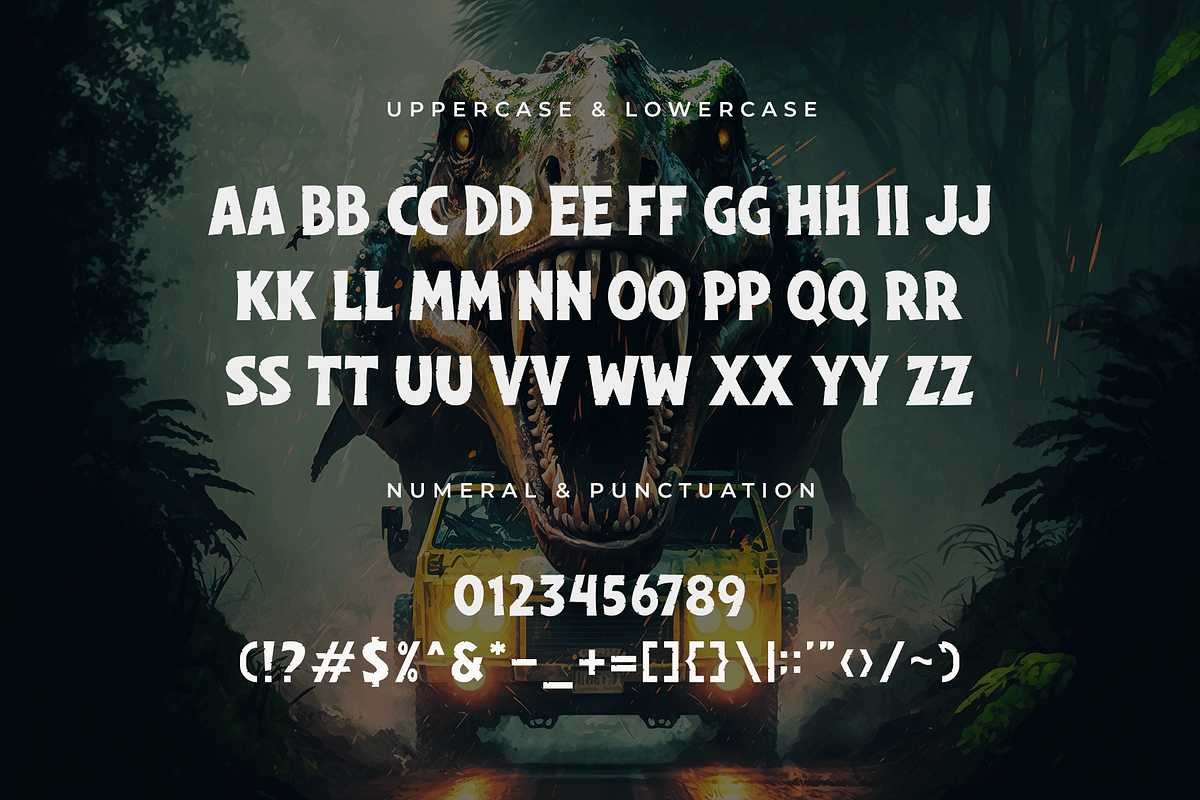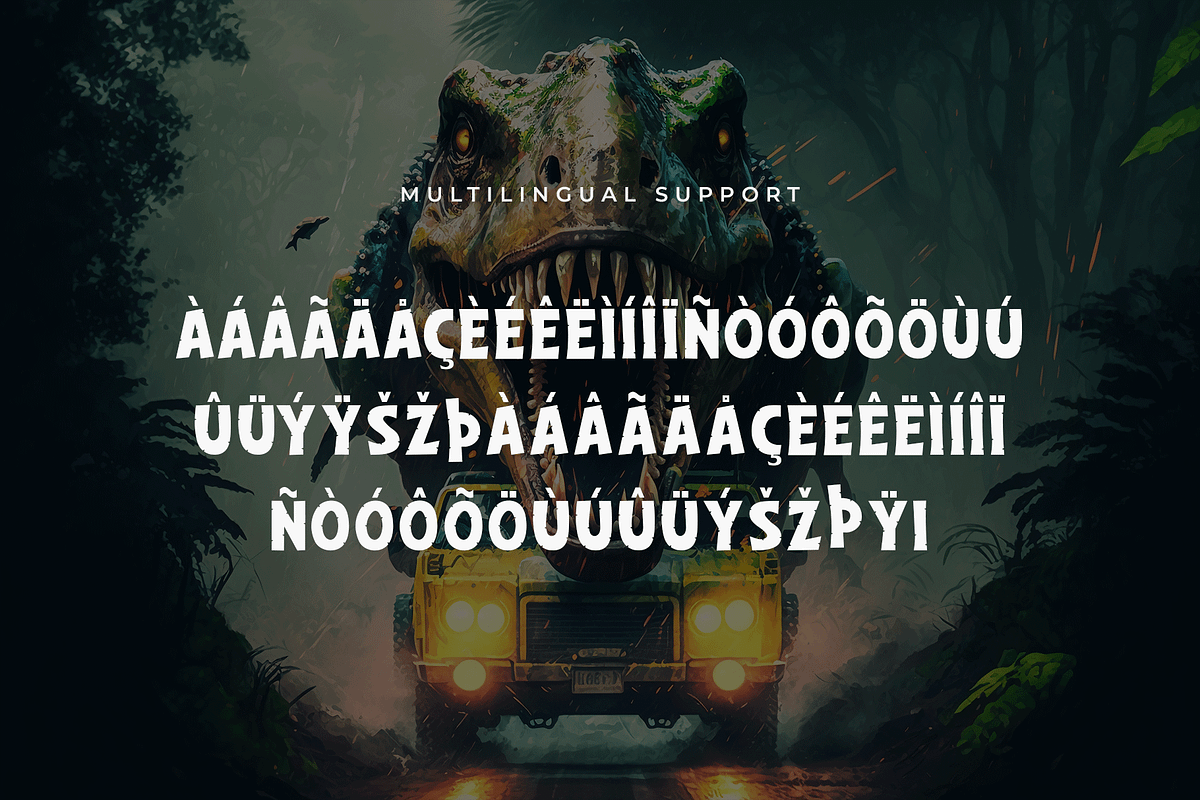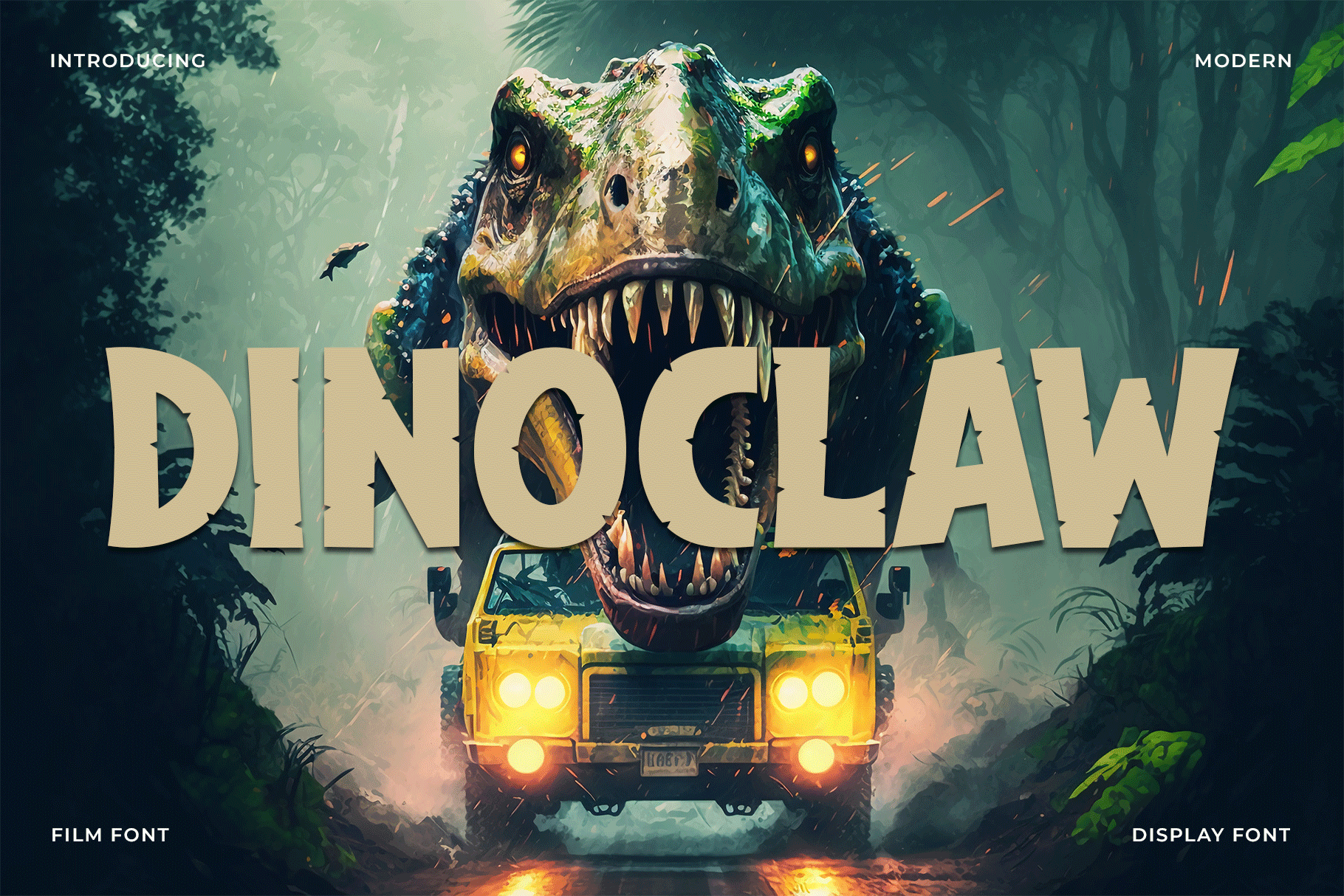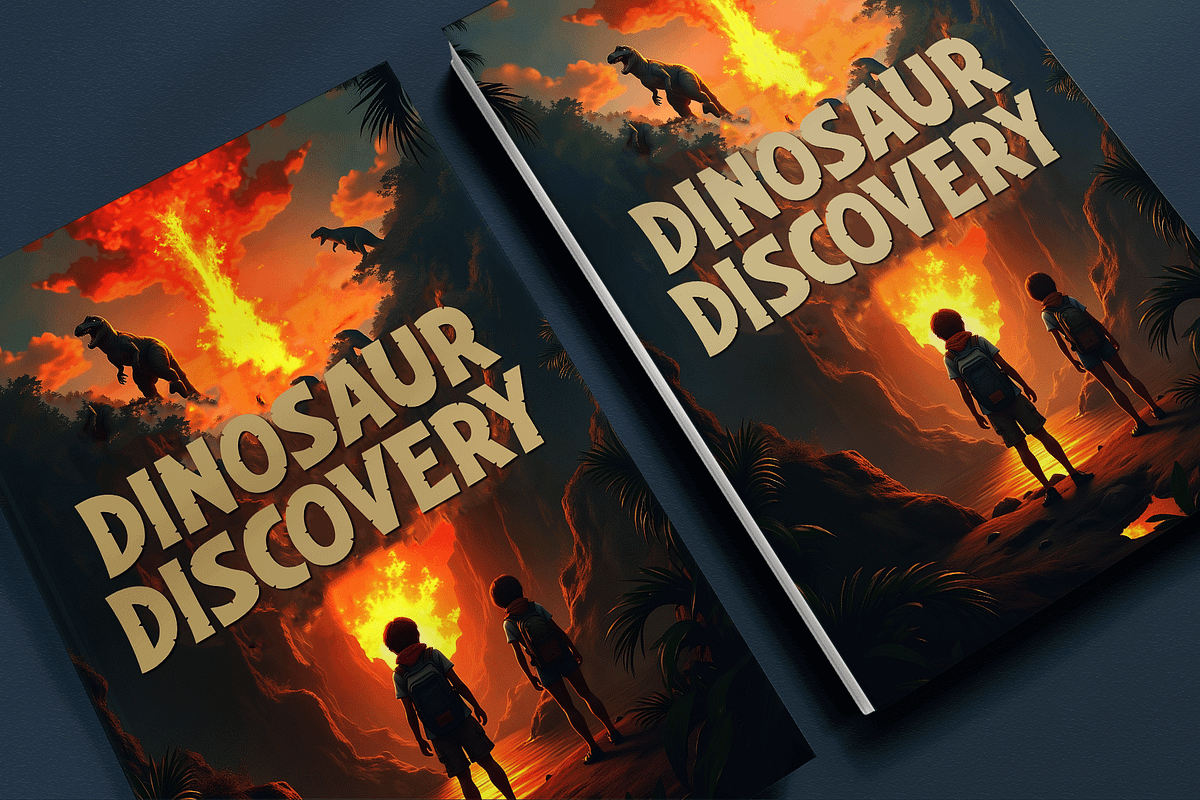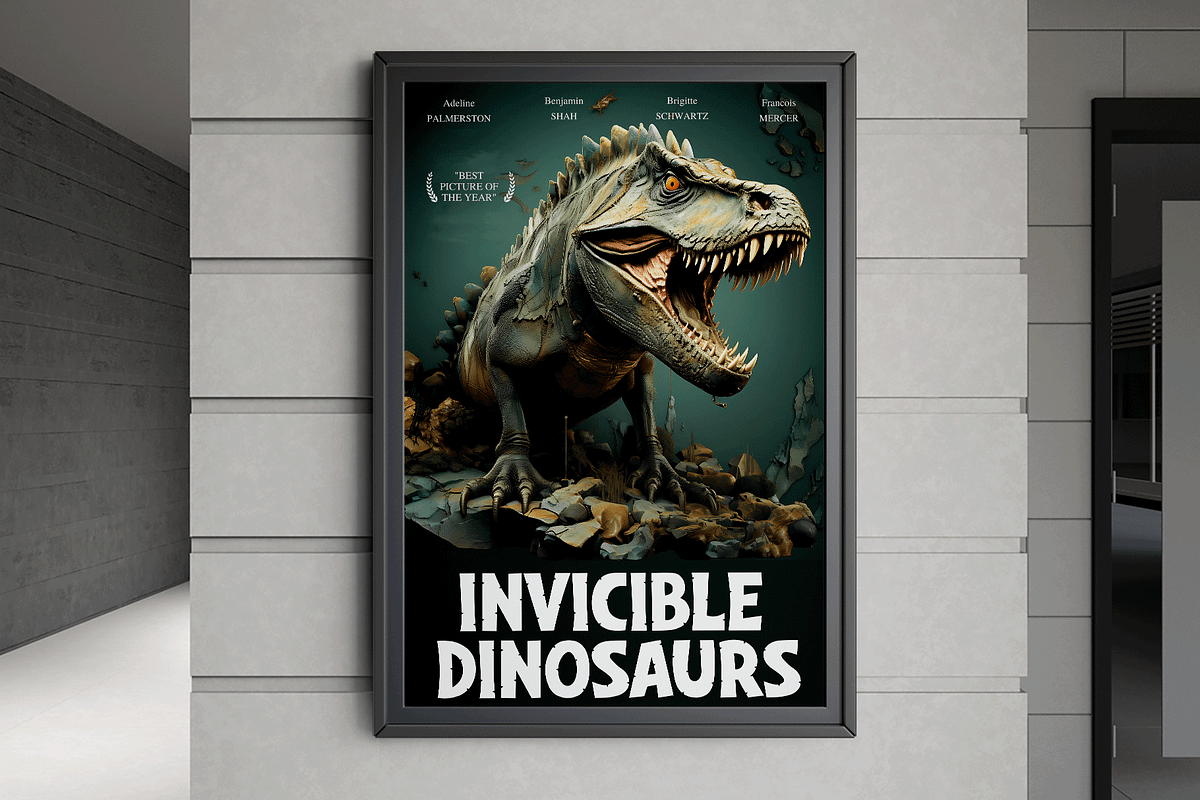
Dinoclaw – A Modern Display Font
Introducing Dinoclaw, a bold modern display font with a fierce personality and strong visual impact. Inspired by primal energy and raw creativity, Dinoclaw is perfect for projects that demand attention — from eye-catching headlines to adventurous branding, gaming designs, posters, and merch.
With its sharp edges, dynamic letterforms, and a slightly aggressive style, Dinoclaw brings out a wild, energetic vibe. This font is made for creators who aren’t afraid to stand out and make a statement.
Whether you're working on edgy apparel, extreme sports branding, or bold digital graphics, Dinoclaw claws its way to the front with unmistakable strength and style.